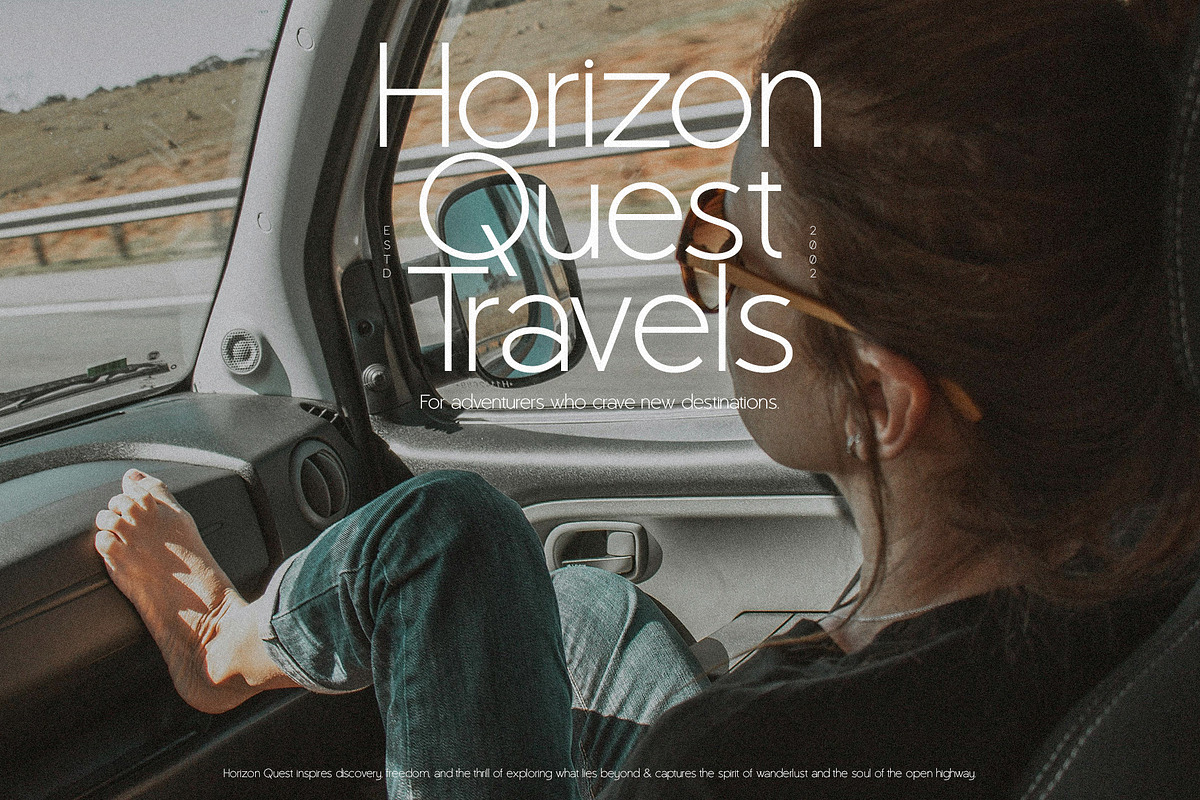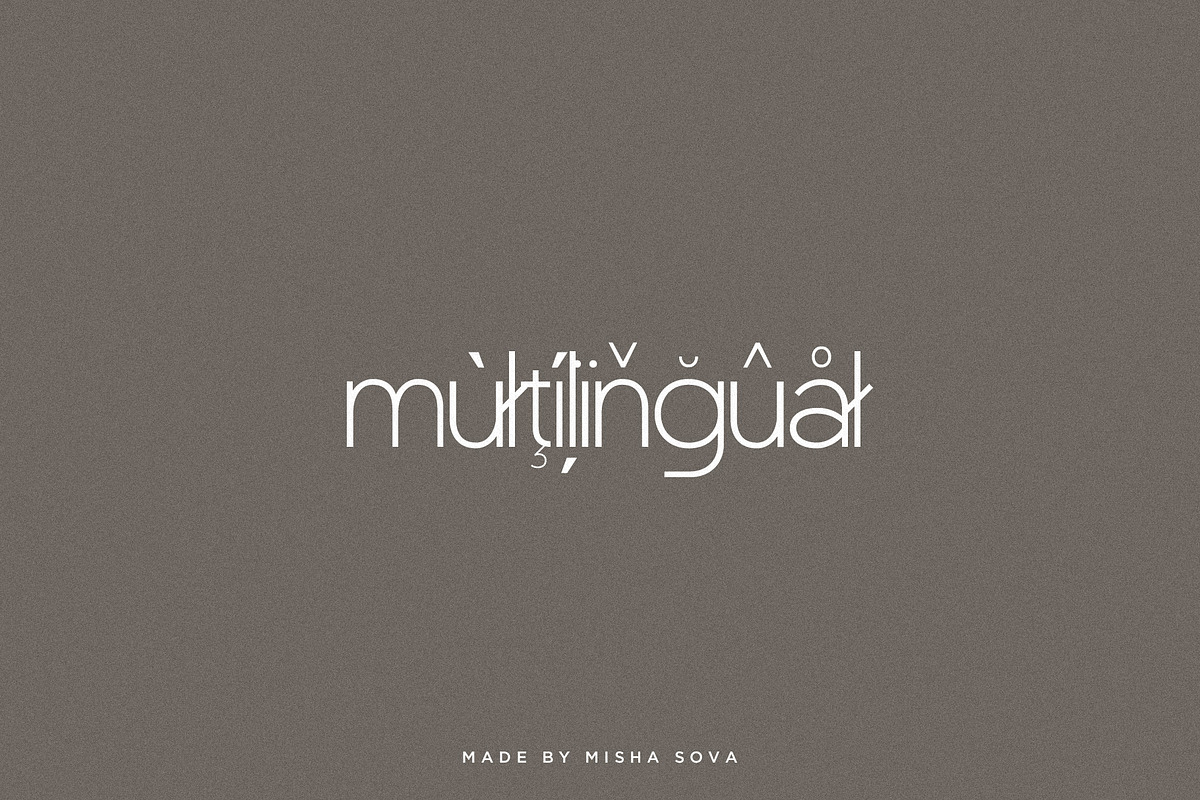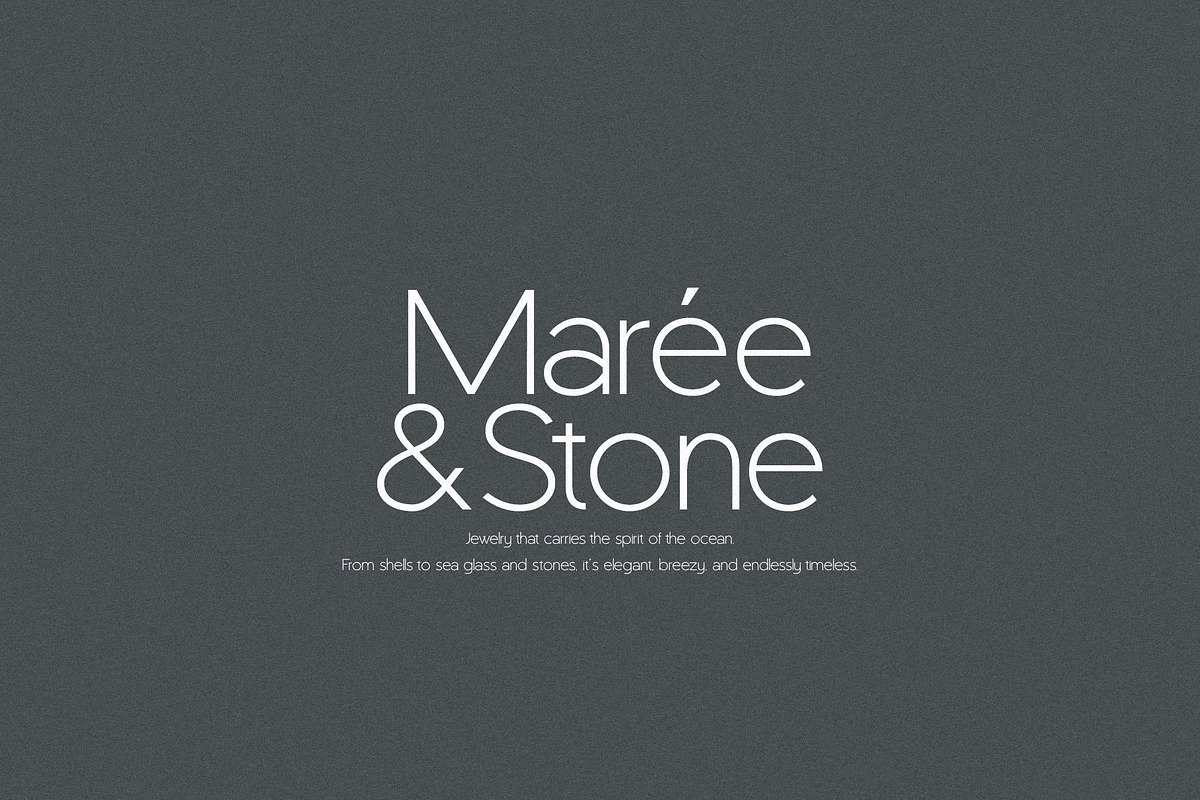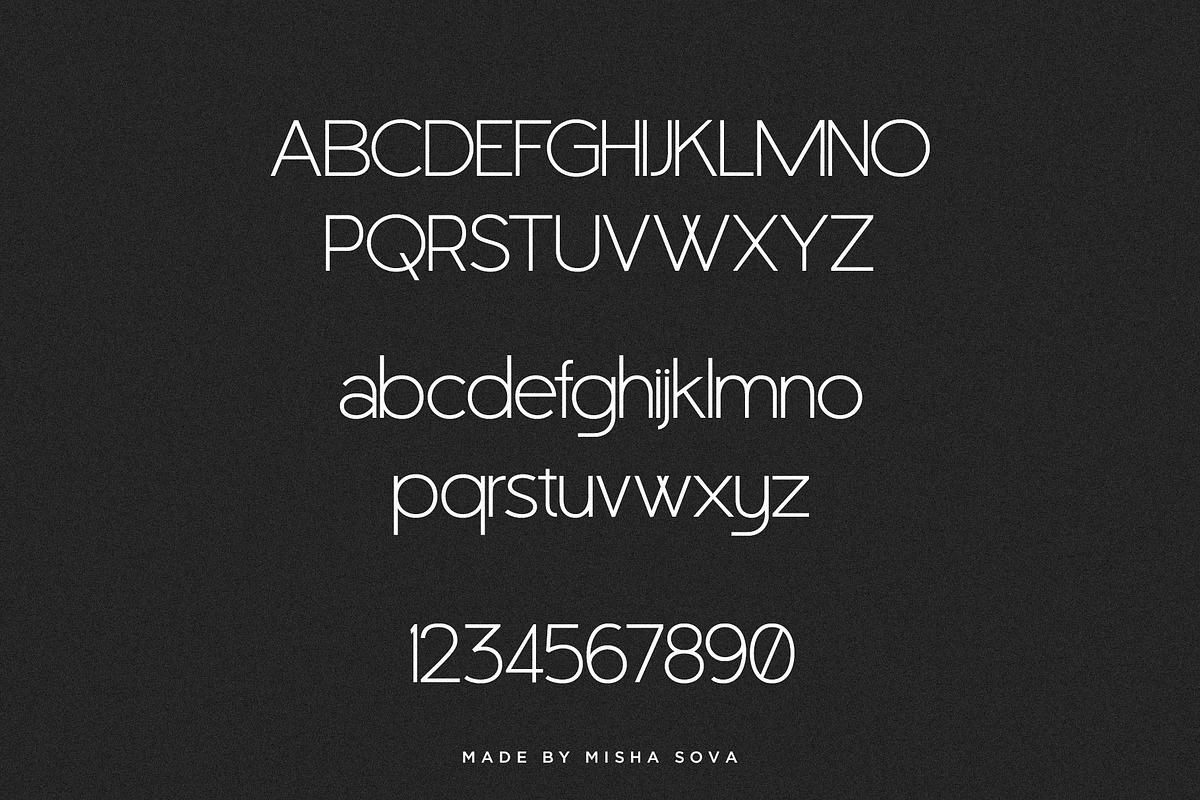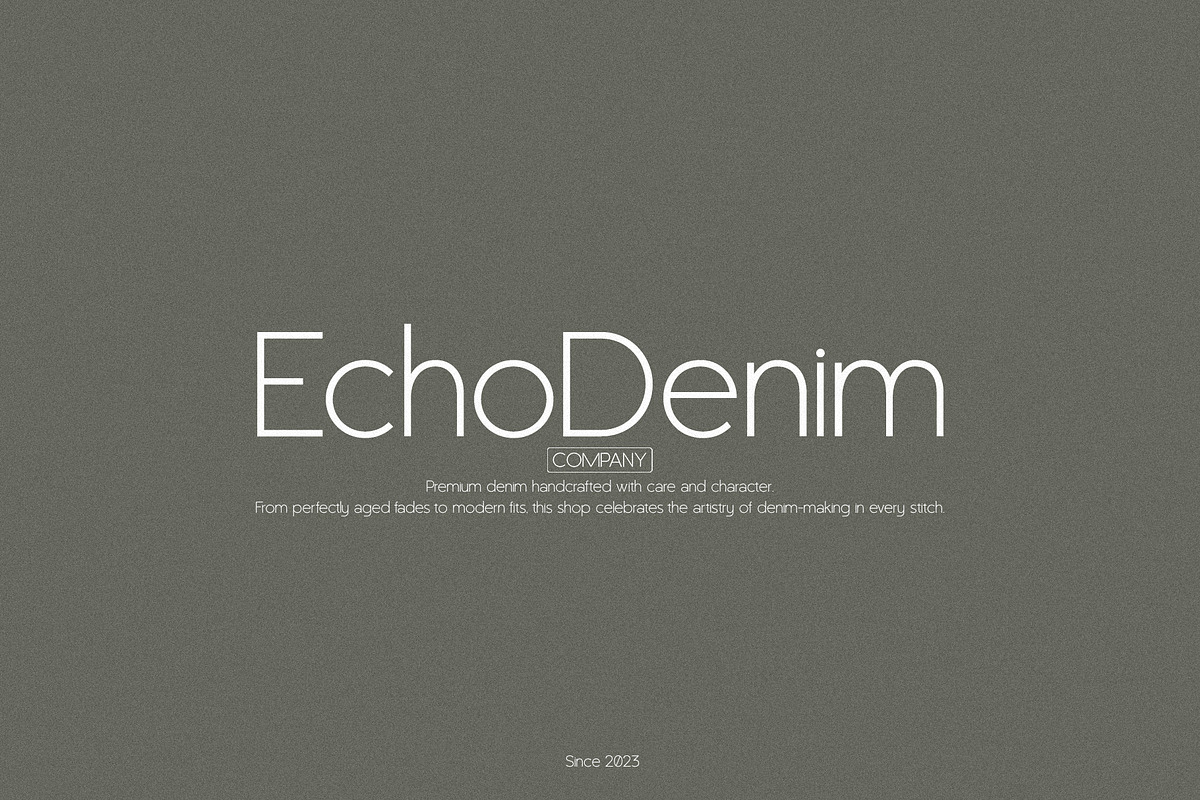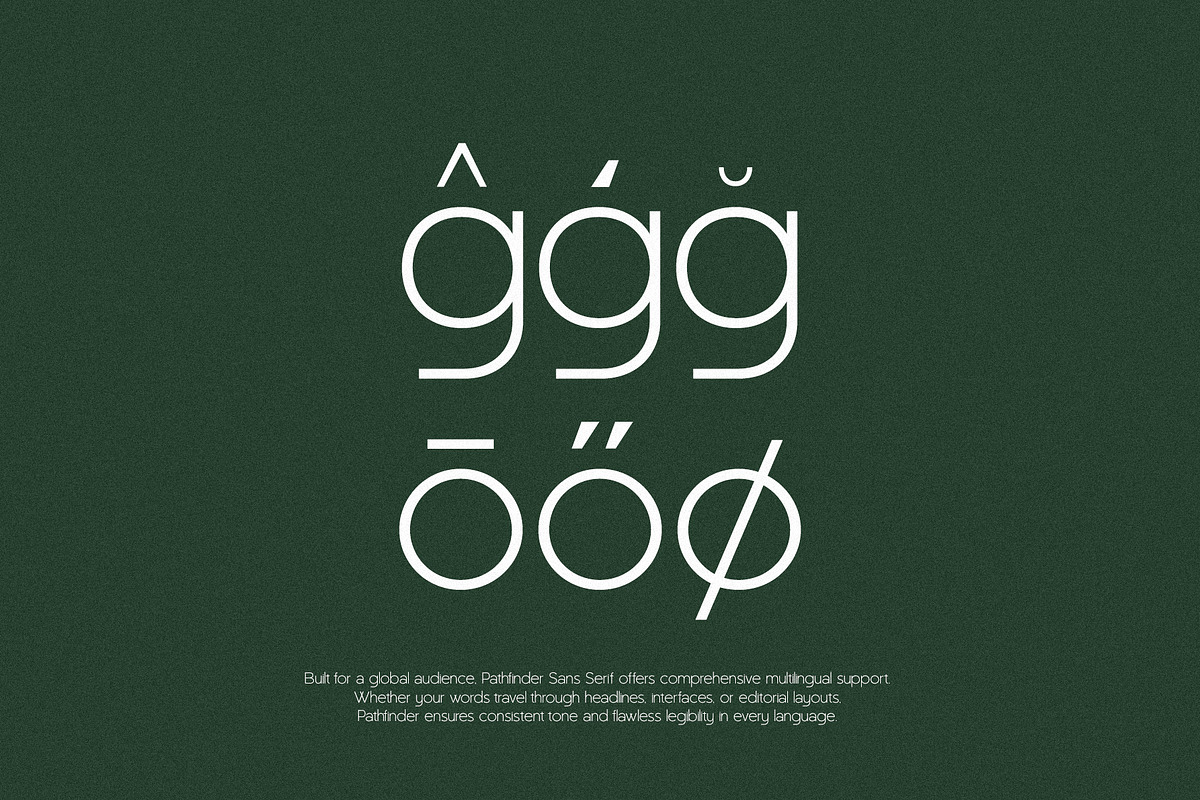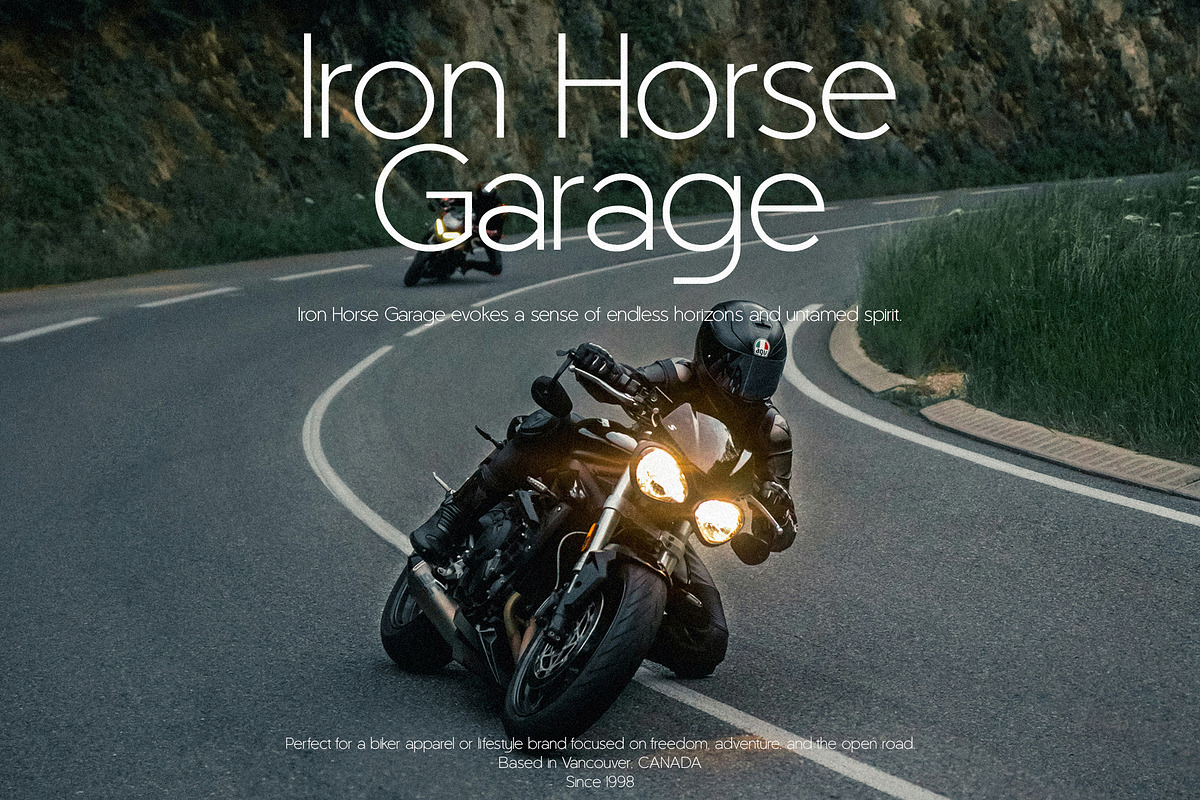
Pathfinder - Classical & Modern Sans
Pathfinder - Classical & Modern Sans by Misha Sova
Pathfinder is a versatile, contemporary typeface that beautifully blends traditional elegance with a sleek, modern sensibility. Drawing inspiration from both classic serif designs and clean, minimalist sans-serif lines, this font offers a harmonious balance of form and function. Its carefully crafted letterforms ensure legibility across all sizes while maintaining a sophisticated, timeless quality.
Ideal for everything from editorial layouts to branding projects, Pathfinder is perfect for anyone seeking a typeface that is both stylish and practical. Whether you’re designing for print or digital, its adaptable nature makes it a reliable choice for headlines, body text, logos, and more.
With subtle yet distinctive curves, Pathfinder brings an air of refinement to any project, while its modern geometric influences keep it fresh and relevant in today’s design landscape. This font is truly a pathfinder for any creative endeavor, leading the way with clarity, style, and versatility.